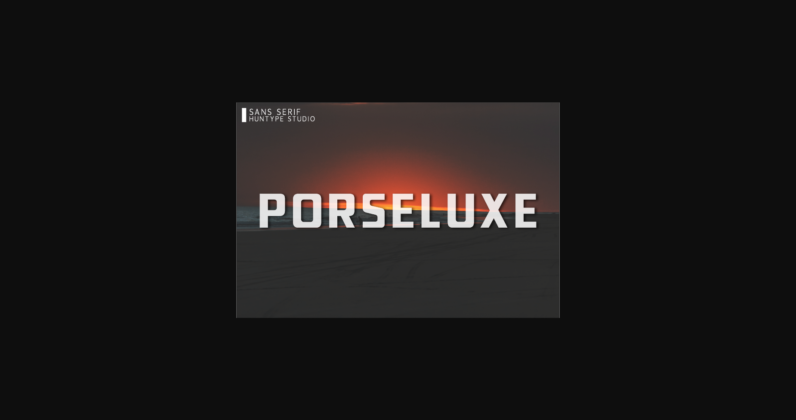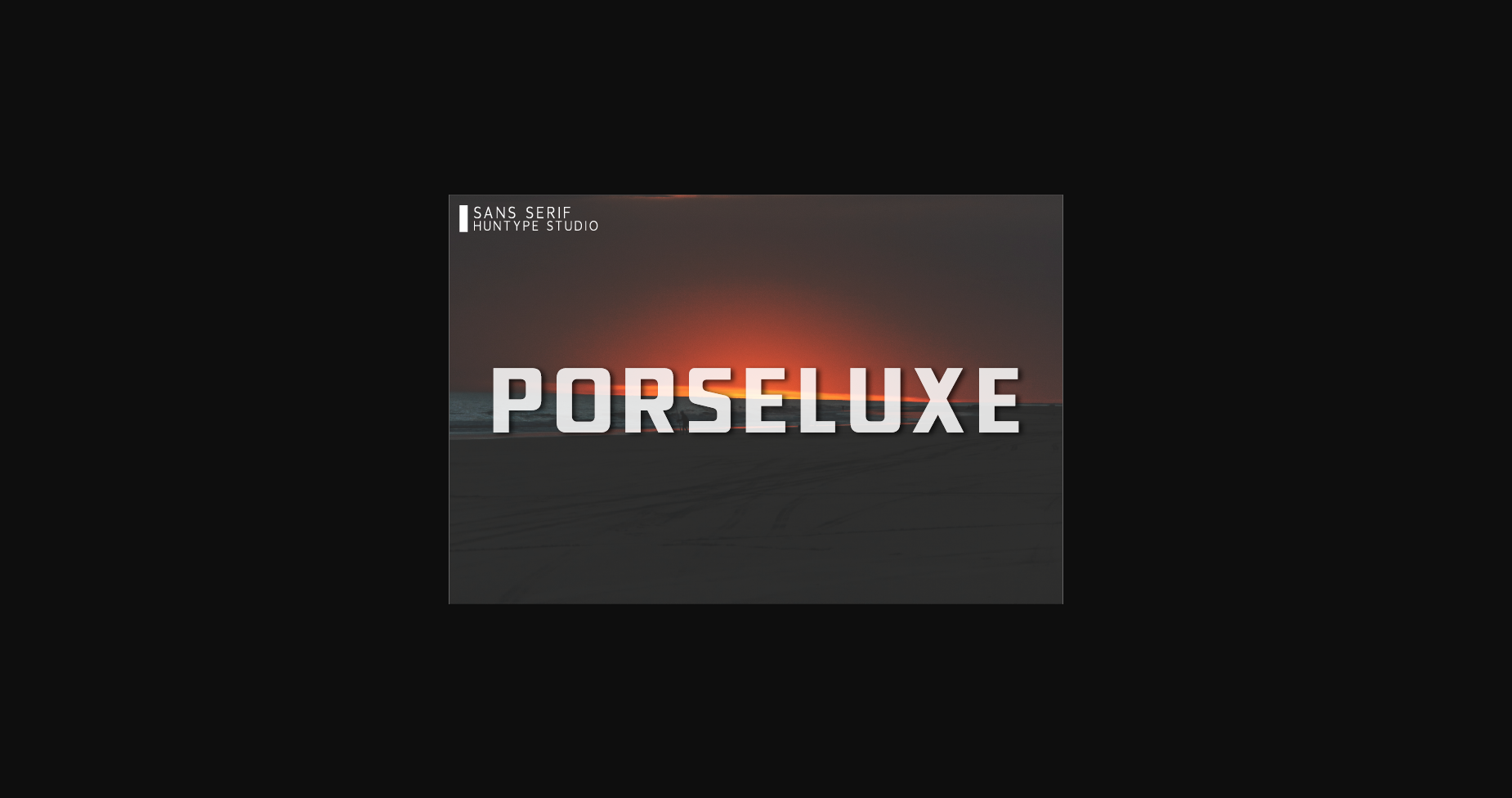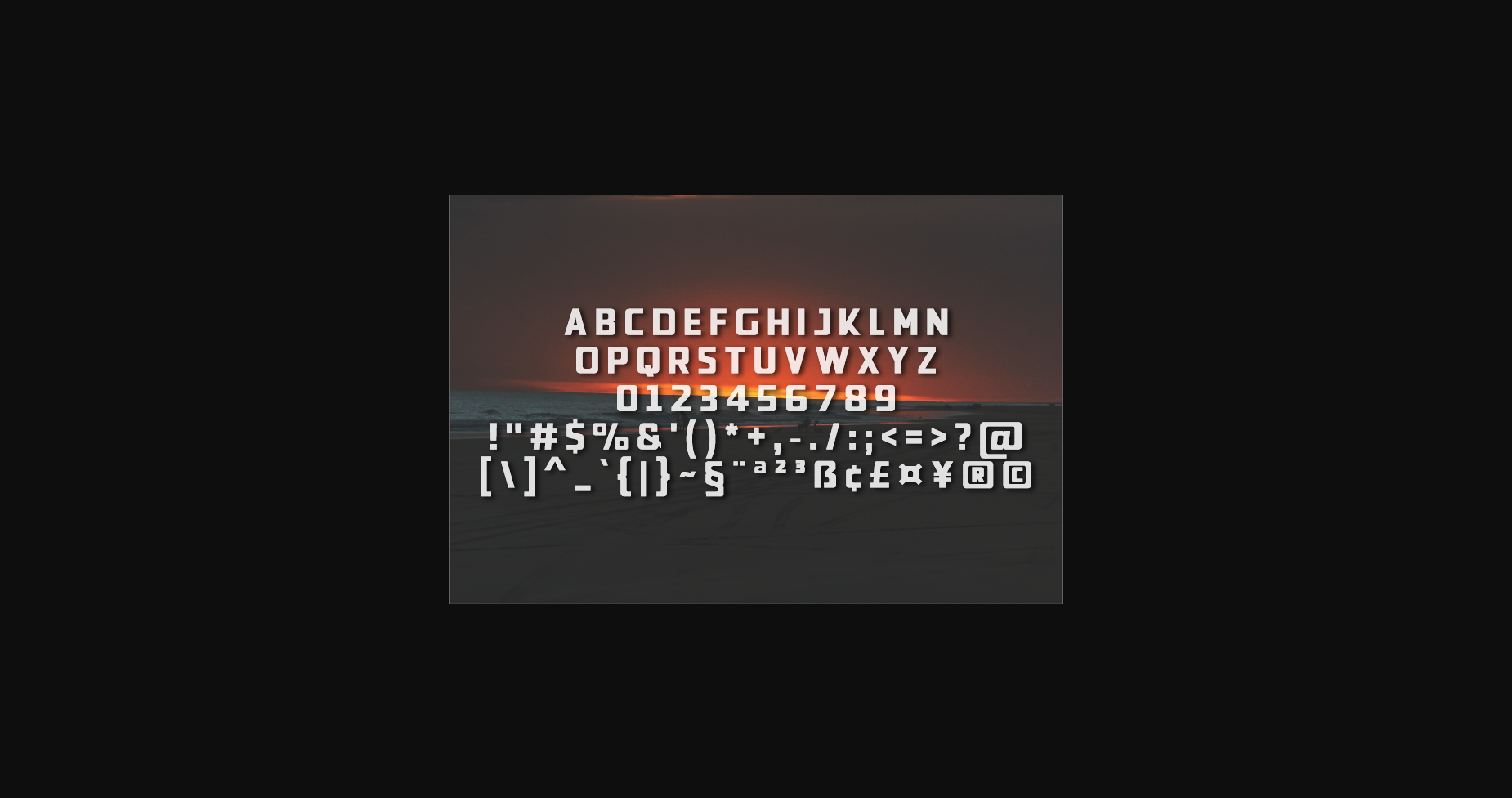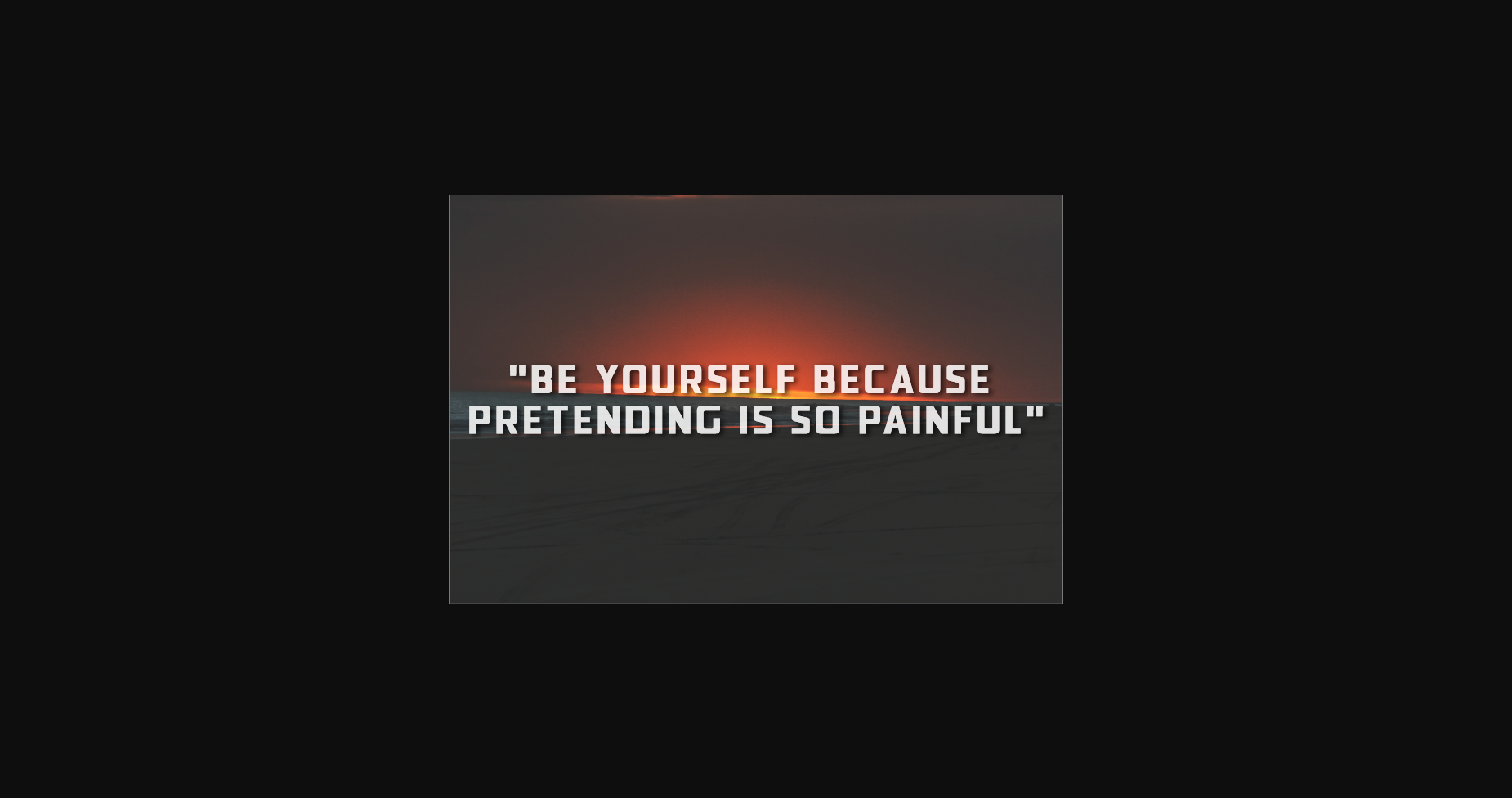
About Porseluxe Font
Porseluxe is an all-caps sans serif font, so versatile that it looks great in just about any context. With smooth and clean lines and just a touch of contrast, Lure works beautifully for logos, branding, advertisements, web headings, and so much more.